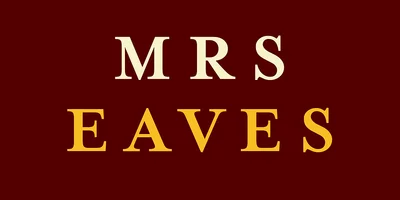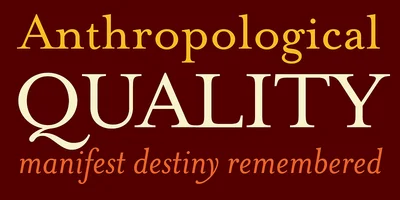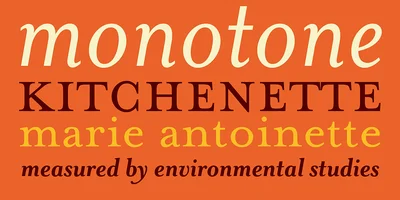
Heldane vs Mrs Eaves
Heldane and Mrs Eaves are both serif typefaces sharing a editorial foundation. Where Heldane leans display, modern, Mrs Eaves brings transitional. Compare which suits your Editorial project.
Mrs Eaves
Transitional
Elegant
Mrs Eaves
Consider: Mrs Eaves
• transitional design character
• Suited for Publishing
• From Emigre